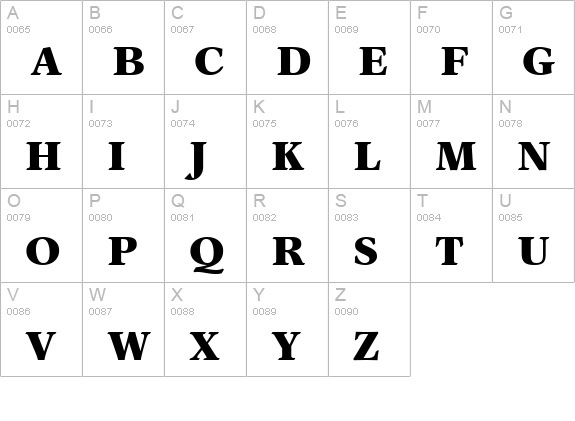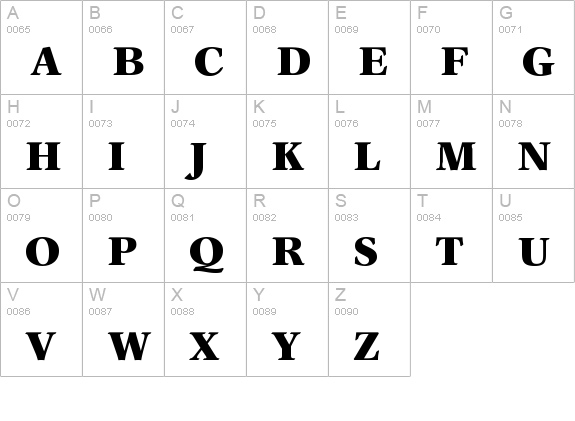
Axiomatic Black SSi Black is a maximum-weight, dramatic variant in the Axiomatic typeface family \xE2\x80\x94 well suited to maximum-impact headlines, posters, and packaging.
Axiomatic Black SSi Black font is a sleek and modern typeface that exudes sophistication and style. Its bold, geometric design makes it perfect for creating eye-catching headlines and titles. The sharp edges and clean lines give this font a contemporary and edgy feel, making it ideal for projects that require a strong and impactful aesthetic. What sets Axiomatic Black SSi Black font apart is that it is available for free download at FontsMarket.com. This means that you can access this high-quality font without any cost, making it a fantastic option for designers and creatives looking to elevate their work without breaking the bank. Whether you're working on a branding project, poster design, or website layout, Axiomatic Black SSi Black font is sure to make a statement and leave a lasting impression. Download it today and add a touch of modern elegance to your projects.